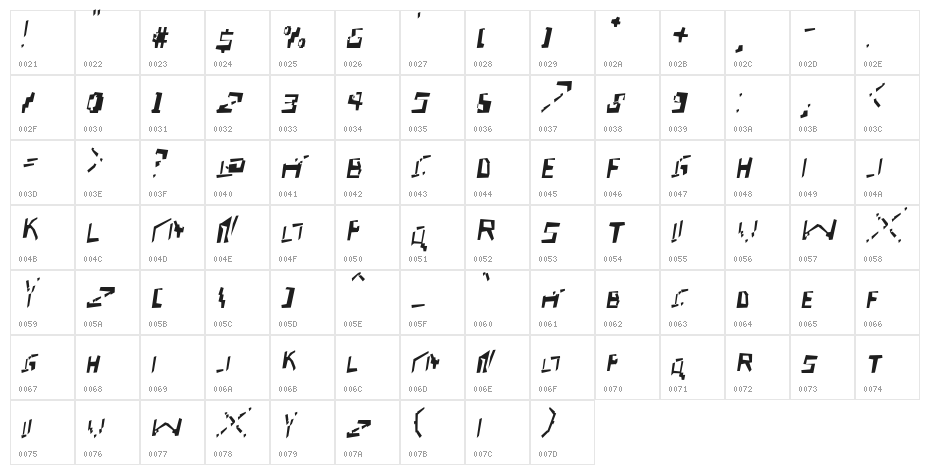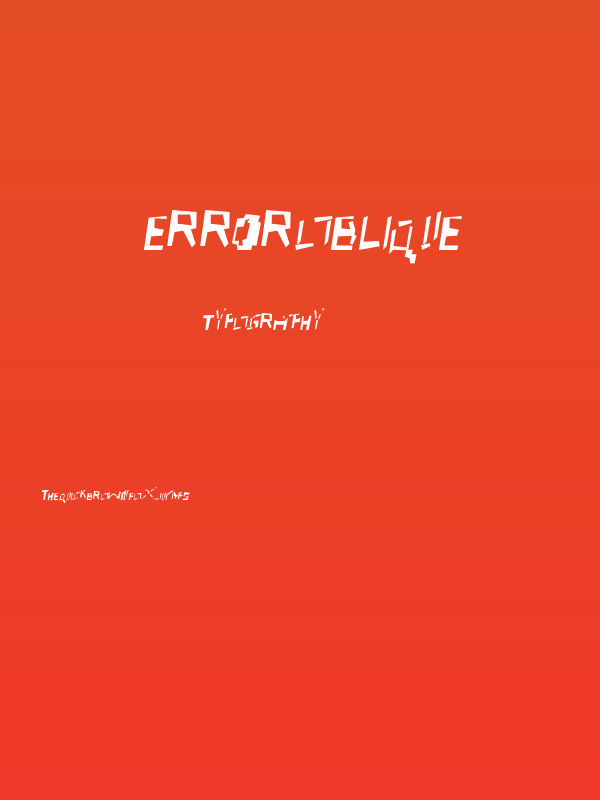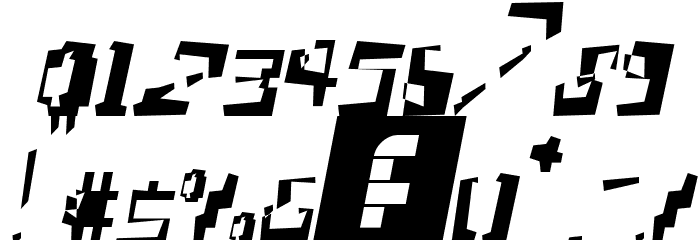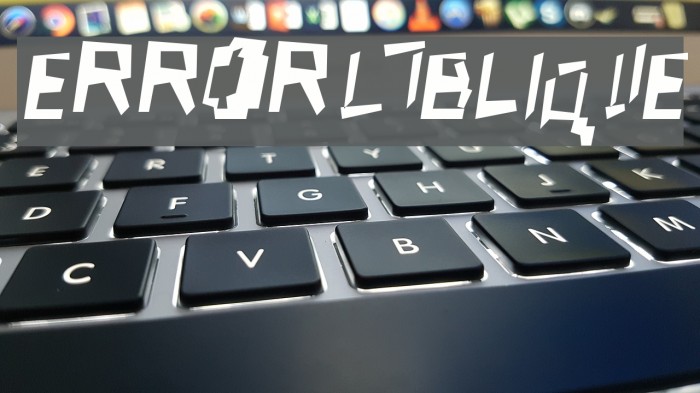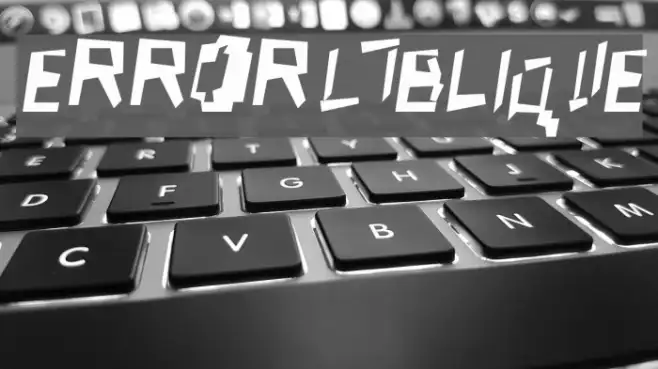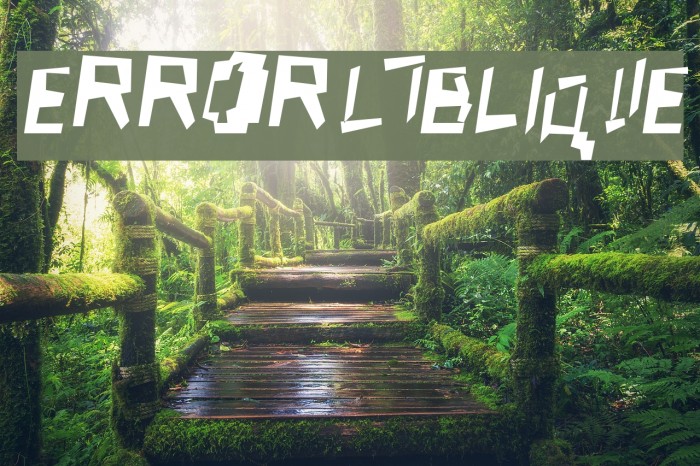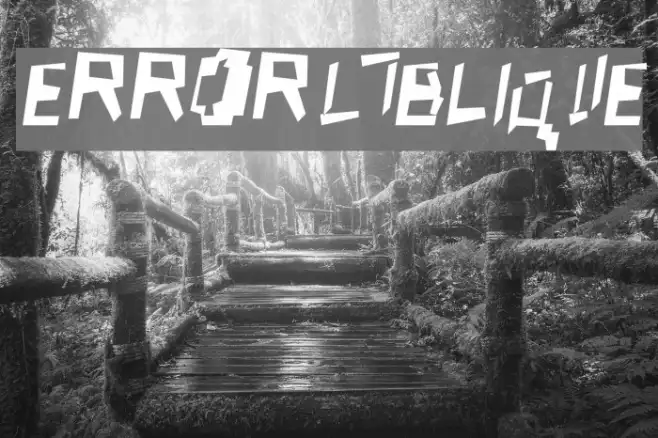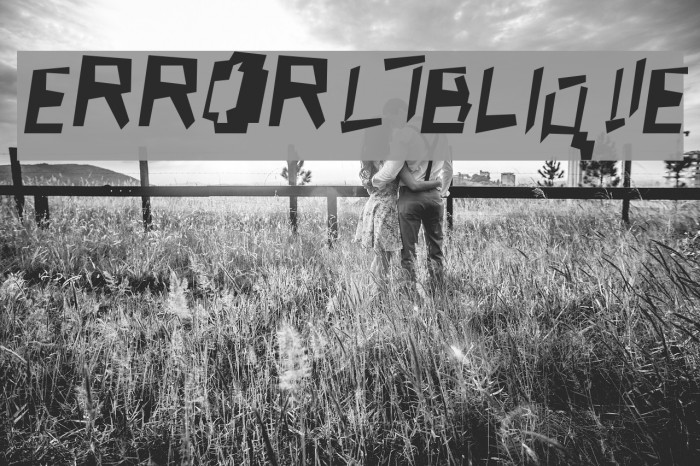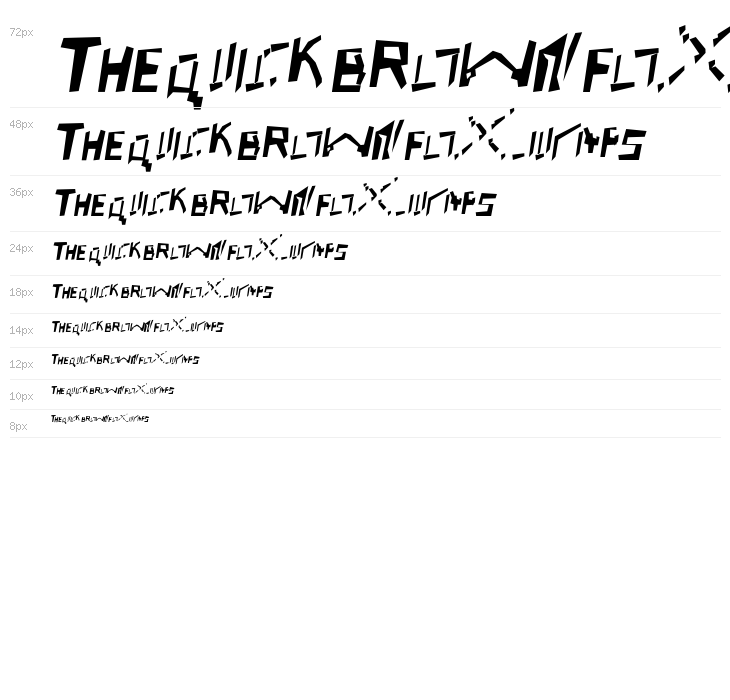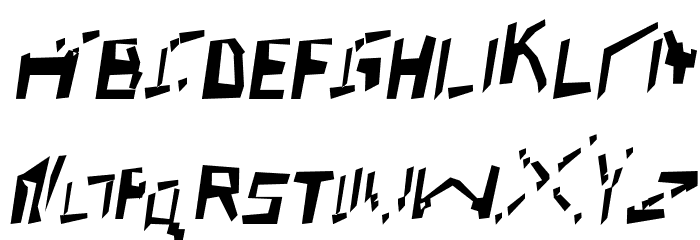
err0r Oblique Font
err0r Oblique Description
This font features a highly stylized, fragmented design with an oblique orientation, giving it a dynamic and edgy appearance. The characters are composed of sharp, angular shapes that create a sense of movement and disruption. The uppercase and lowercase letters maintain a consistent style, with each character appearing as if it has been shattered or glitched. The numbers and special characters follow the same aesthetic, ensuring a cohesive look throughout. This font is ideal for projects that require a modern, tech-inspired feel, and it stands out with its unique, artistic flair.
| Overall Style | Modern, Futuristic |
| Proposed Projects | Ideal for digital art, tech branding, video game titles, and futuristic designs. |